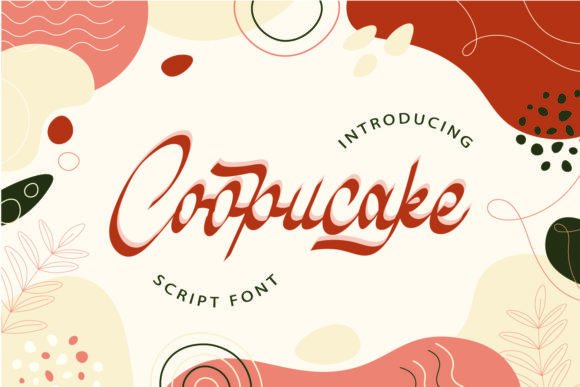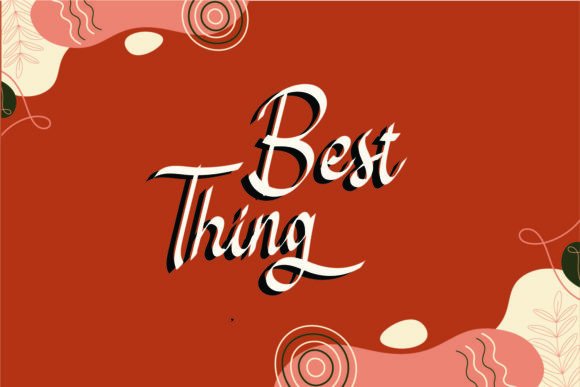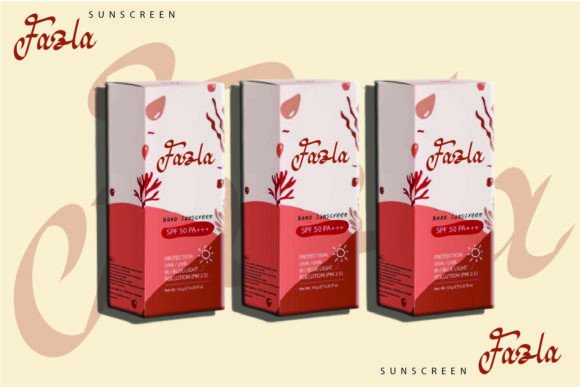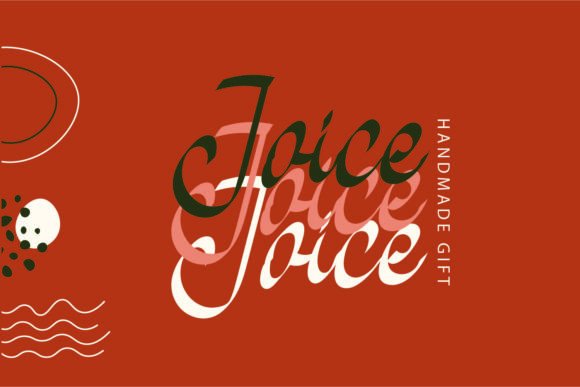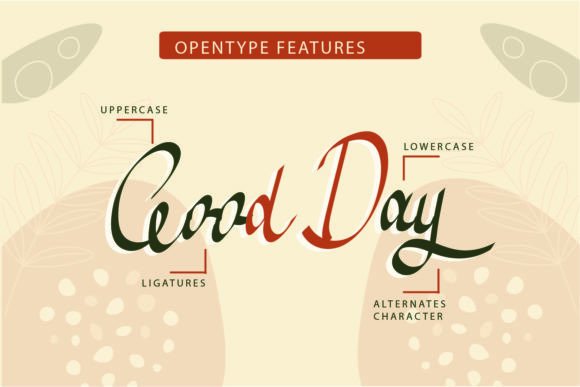
A Modern and Cool Handwritten Script
Coopucake is a modern handwritten script font that blends a cool and stylish design with timeless elegance. Its distinct and flowing strokes make it stand out, bringing a unique touch to your projects. Whether you’re creating logos, invitations, or social media content, Coopucake adds a creative flair that’s sure to catch the eye.
This font’s playful yet sophisticated style makes it ideal for both casual and professional designs. It brings personality to any project while maintaining a sense of polish and refinement.
Coopucake is a versatile font that can be used for a variety of creative projects. It’s perfect for logos, business cards, and branding materials. The modern script design gives your brand a memorable look with a unique handwritten touch that stands out in any market.
The font works beautifully for wedding invitations, greeting cards, and event signage. Its charming yet elegant style adds a special touch to any occasion, making it perfect for personalized designs.
Coopucake also shines in social media graphics, blog headers, and promotional materials. Whether you’re designing eye-catching Instagram posts or creating banners for your website, this font gives your content a distinctive personality that grabs attention.
Despite its artistic style, Coopucake remains legible at any size. The letter spacing and flowing strokes ensure that your text is clear, whether you’re using it for large headlines or smaller text.
Pair Coopucake with a simple sans-serif font for contrast. Use Coopucake for titles and headings, and complement it with a clean, modern sans-serif font for the body text. This creates a balanced and stylish design that’s easy to read.
To showcase Coopucake’s unique style, use bold backgrounds and simple layouts. Bright colors and minimal designs allow the font’s playful curves to shine without overwhelming your work.
For wedding materials or luxury branding, consider adding delicate patterns or geometric elements to complement Coopucake’s modern feel. For social media graphics and advertisements, keep the layout simple and let the font take center stage.
Think about the mood you want to convey. Coopucake is perfect for designs that should feel creative, modern, and charming, with just the right amount of elegance.
Coopucake is more than just a modern handwritten font. It’s a powerful creative tool that helps you add character and style to your designs. Its unique, flowing design is perfect for various projects, from branding to personal creations.
Adding Coopucake to your font collection ensures you always have a go-to option for eye-catching and memorable designs. Whether you’re creating logos, invitations, or social media content, this font adapts effortlessly to your vision.